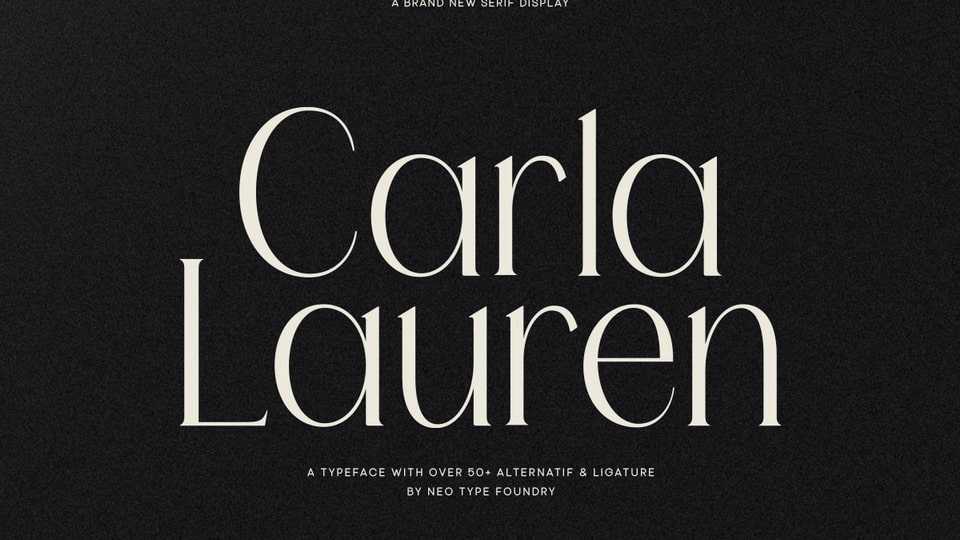
Download NT Carla Lauren font, a modern display typeface that embodies sophistication with a subtle touch of drama. Designed to stand out in headlines, logos, and editorial layouts.
Designer: Neotype